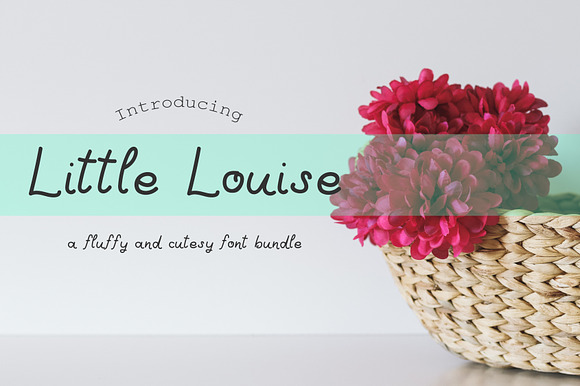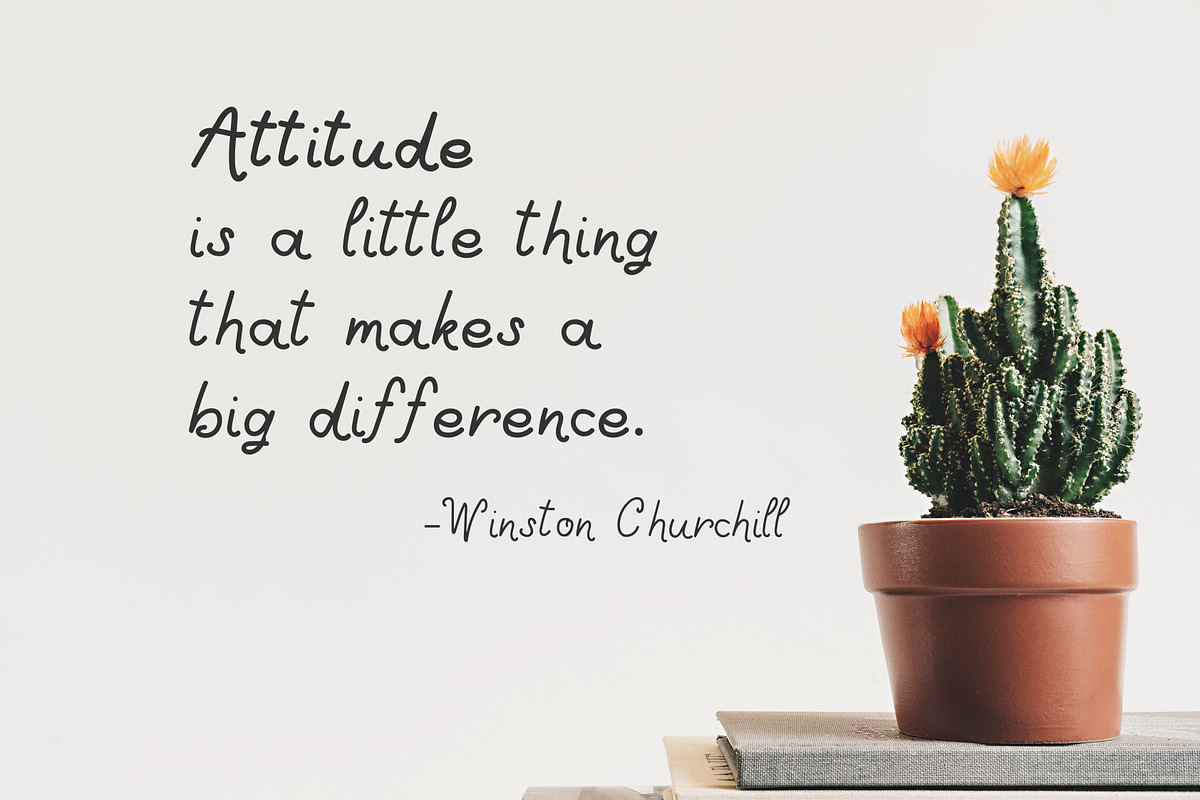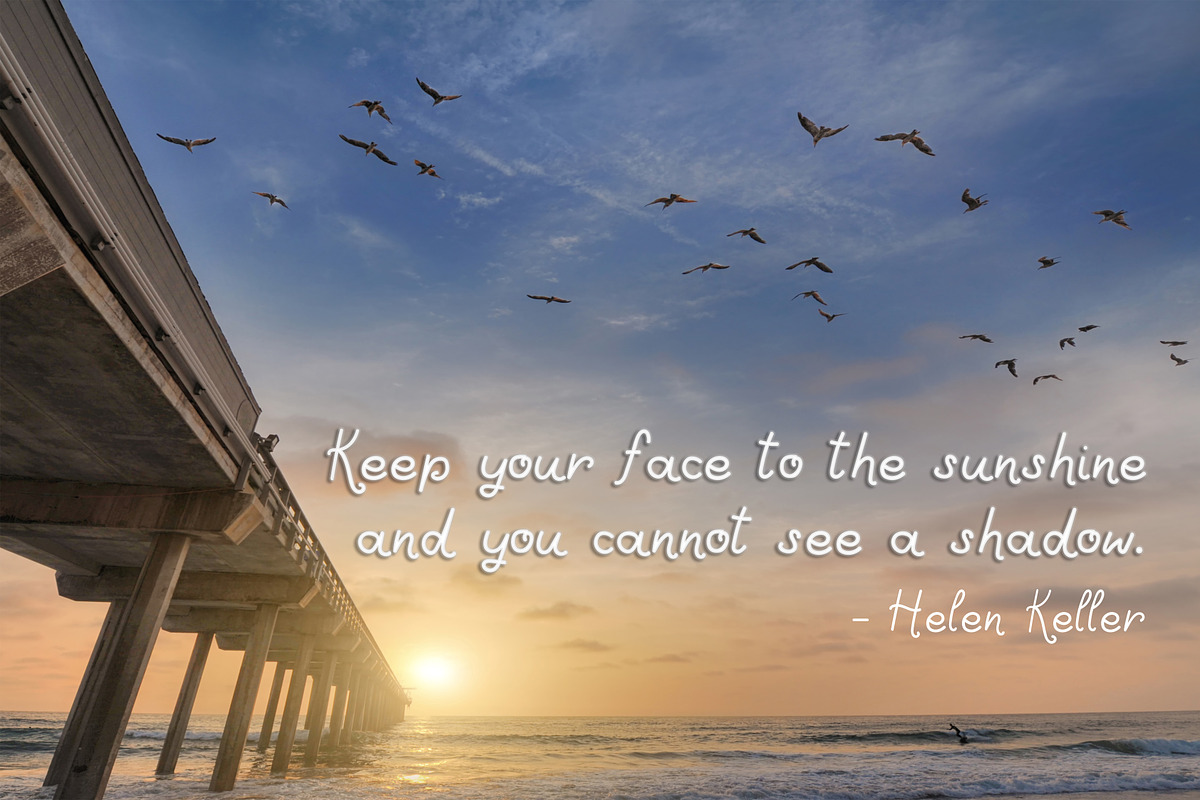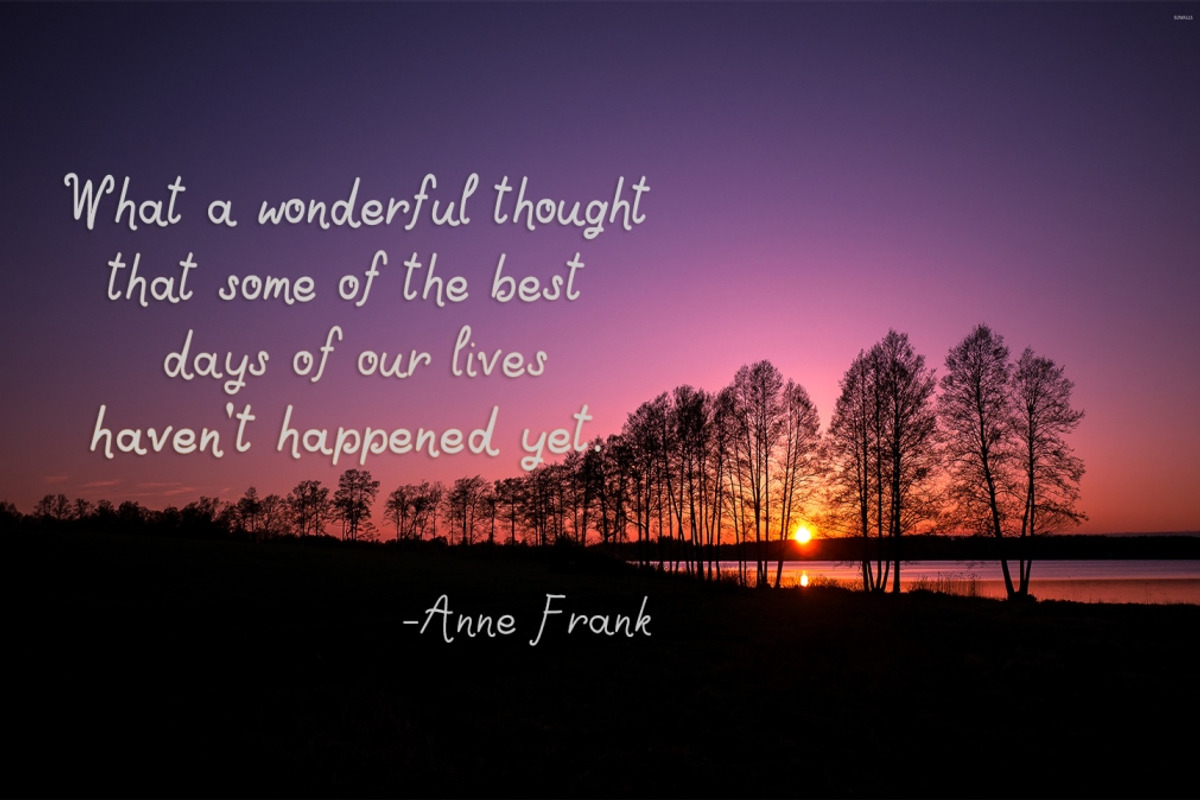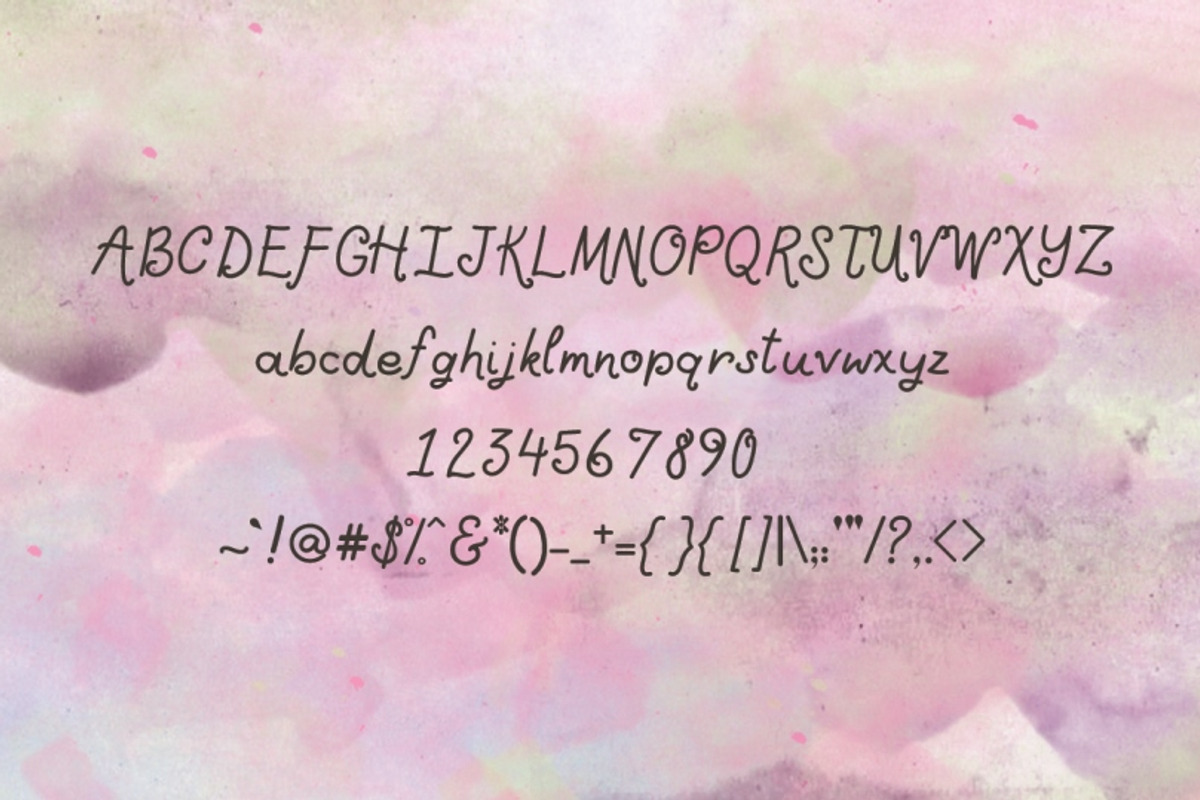
Little Louise, a cutesy font
Introducing, Little Louise, a playful, fluffy and cutesy font that will add youthfulness to your designs.
Why Little Louise, a cutesy font is worth a look
Little Louise, a cutesy font by JuanaLetter fits naturally into Branding, posters, packaging, typography.